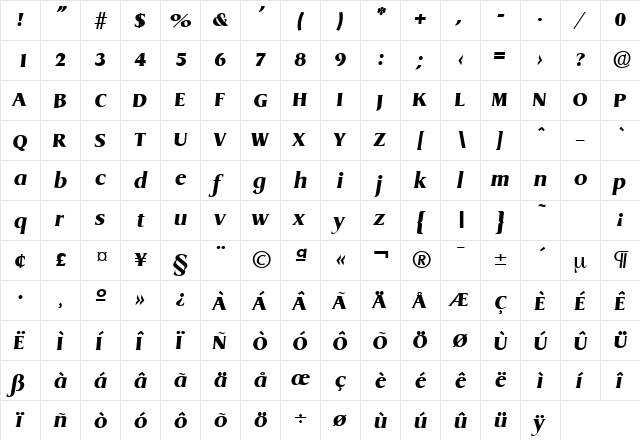
Dragon-Serial-Heavy RegularItalic
Design Context for Dragon-Serial-Heavy Typeface
Dragon-Serial-Heavy is a composed and adaptable typeface that performs quietly and consistently across a wide range of design contexts. The dynamic lean of this cut emphasises speed and emphasis in any layout.
Pro Tip: Try Dragon-Serial-Heavy for annotation and caption copy alongside an upright companion — the contrast in angle creates a dynamic but ordered typographic system.